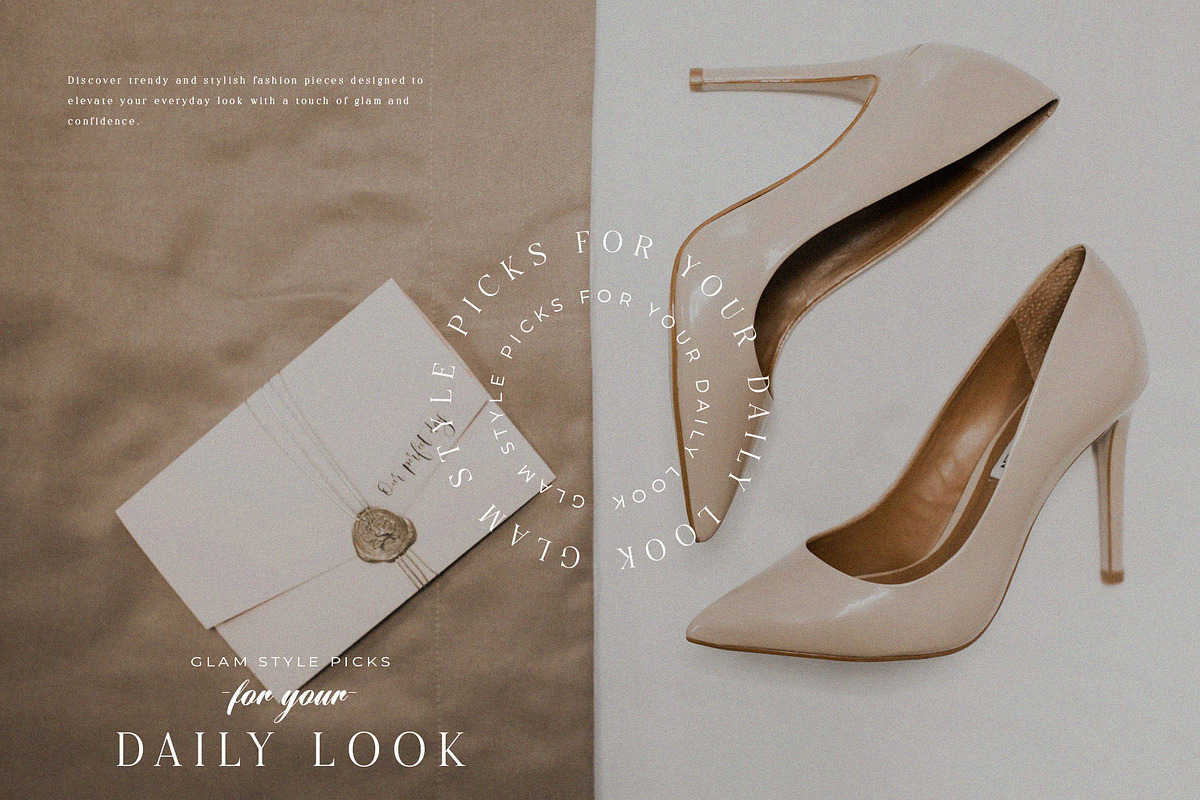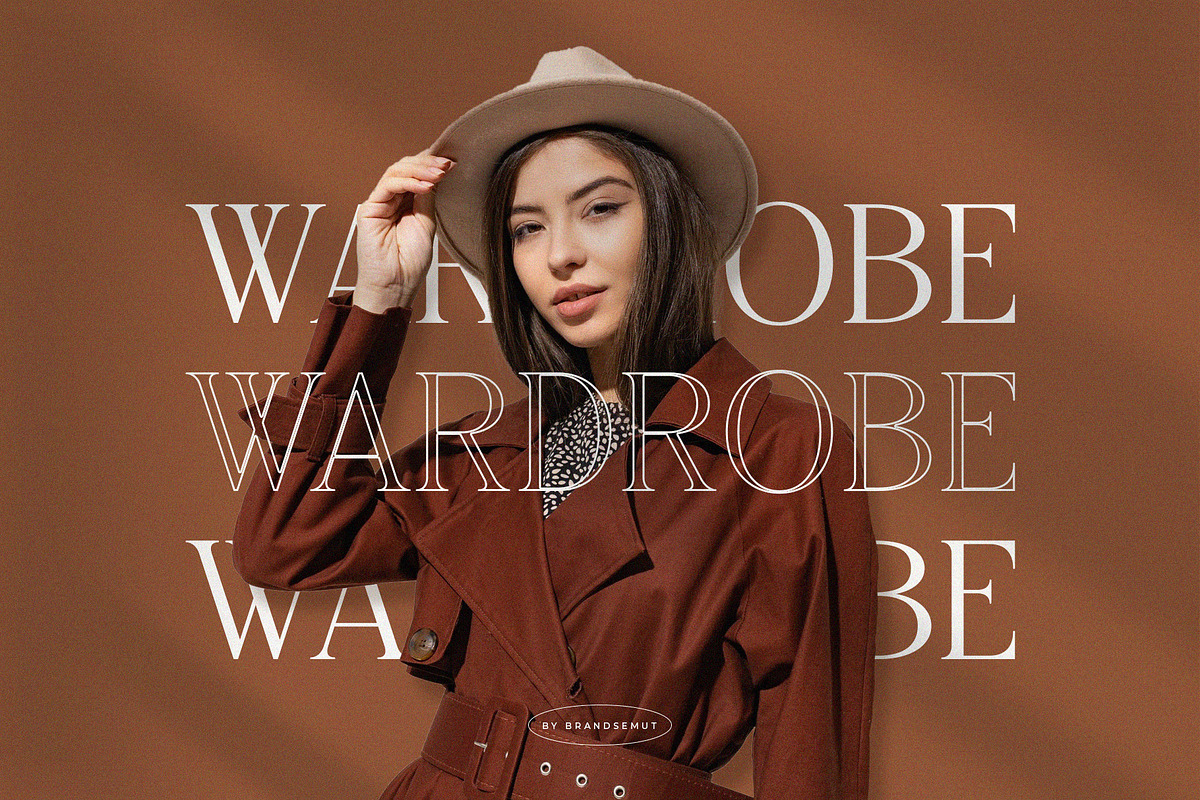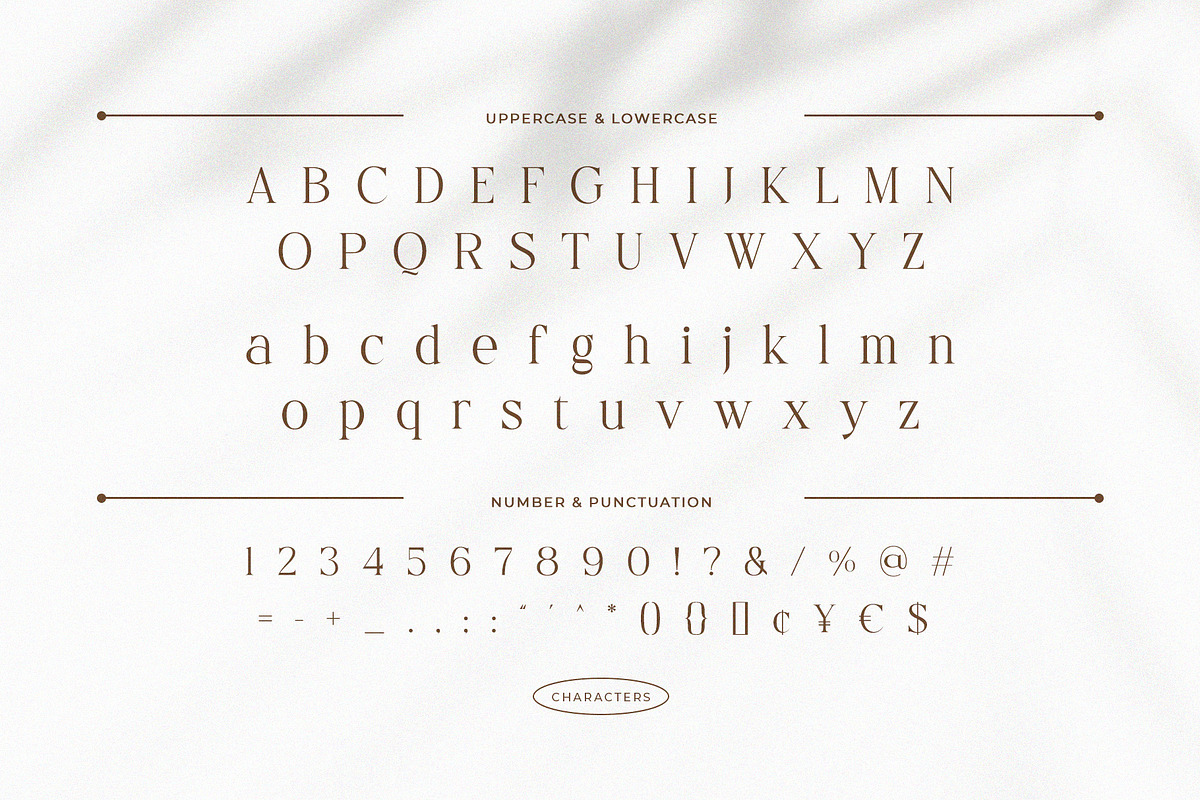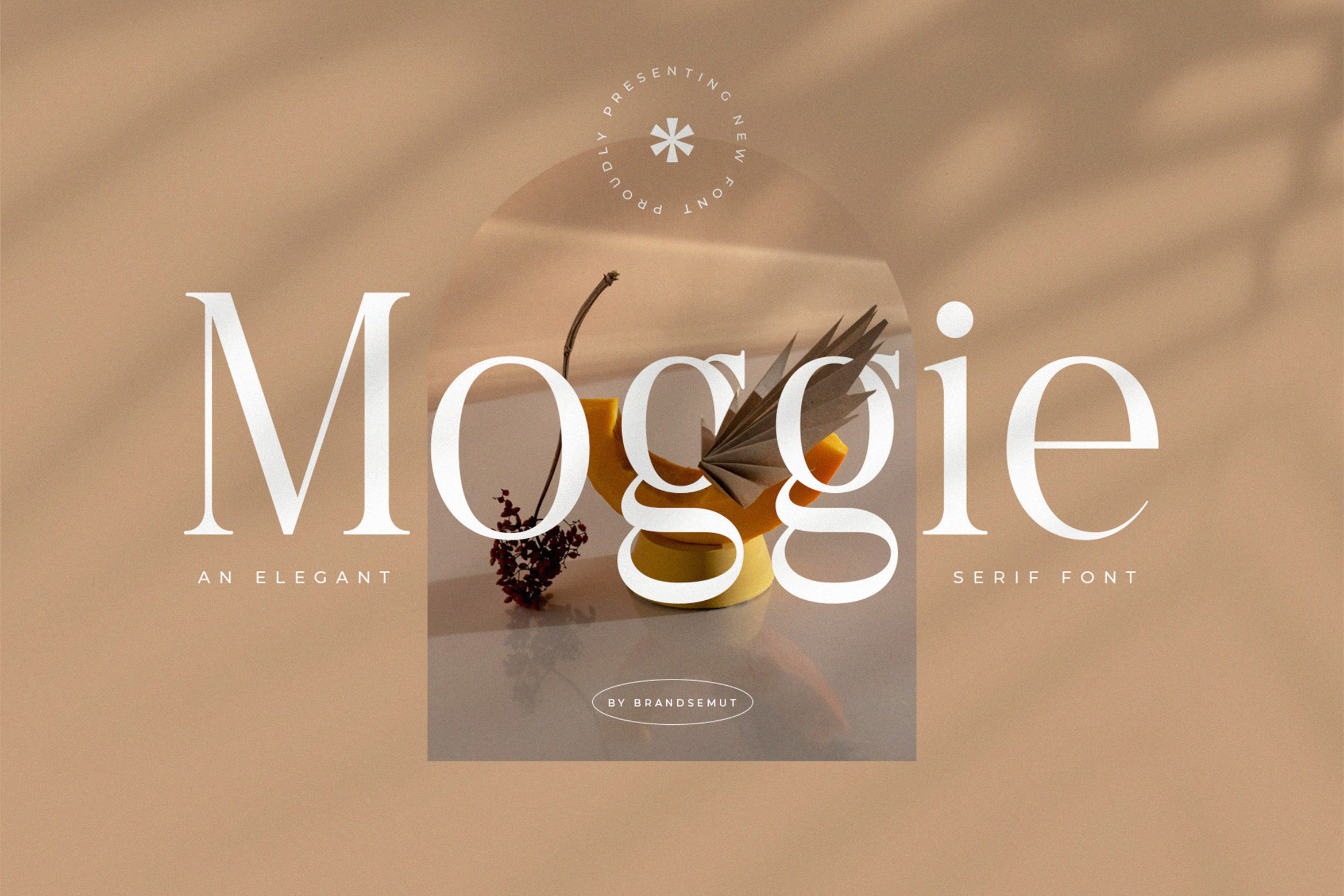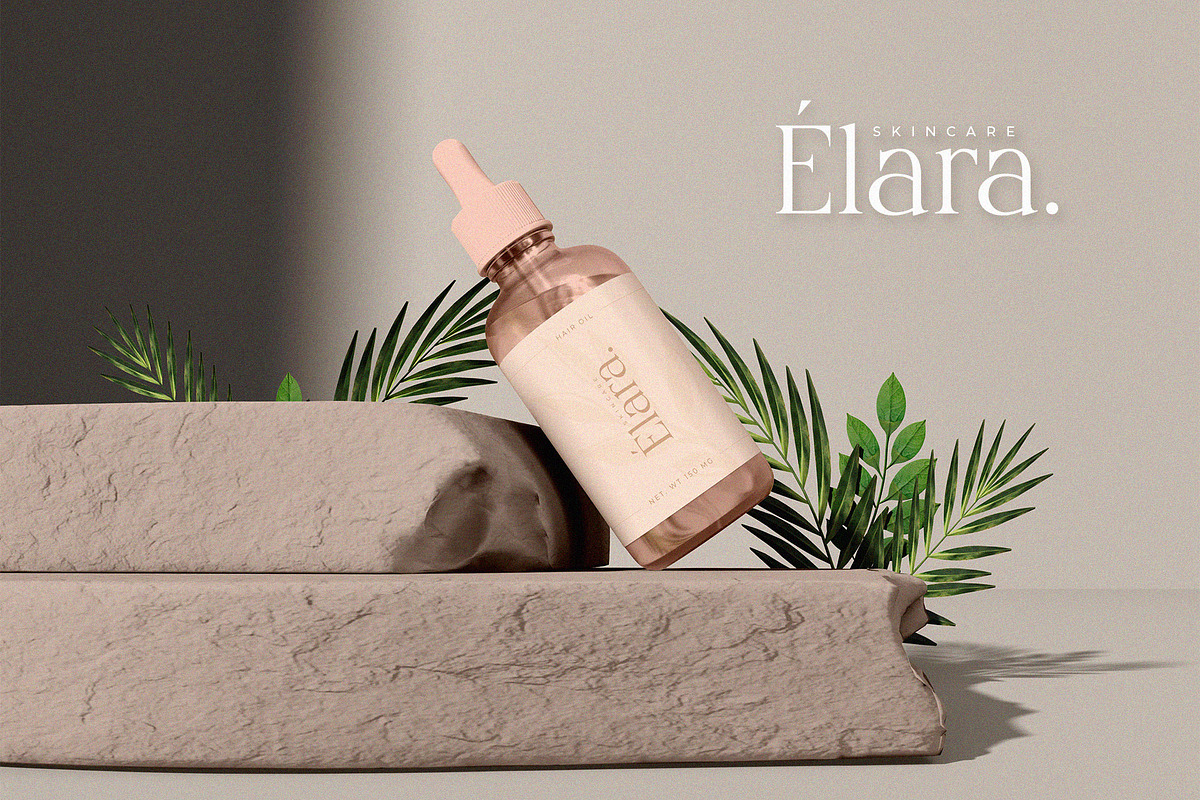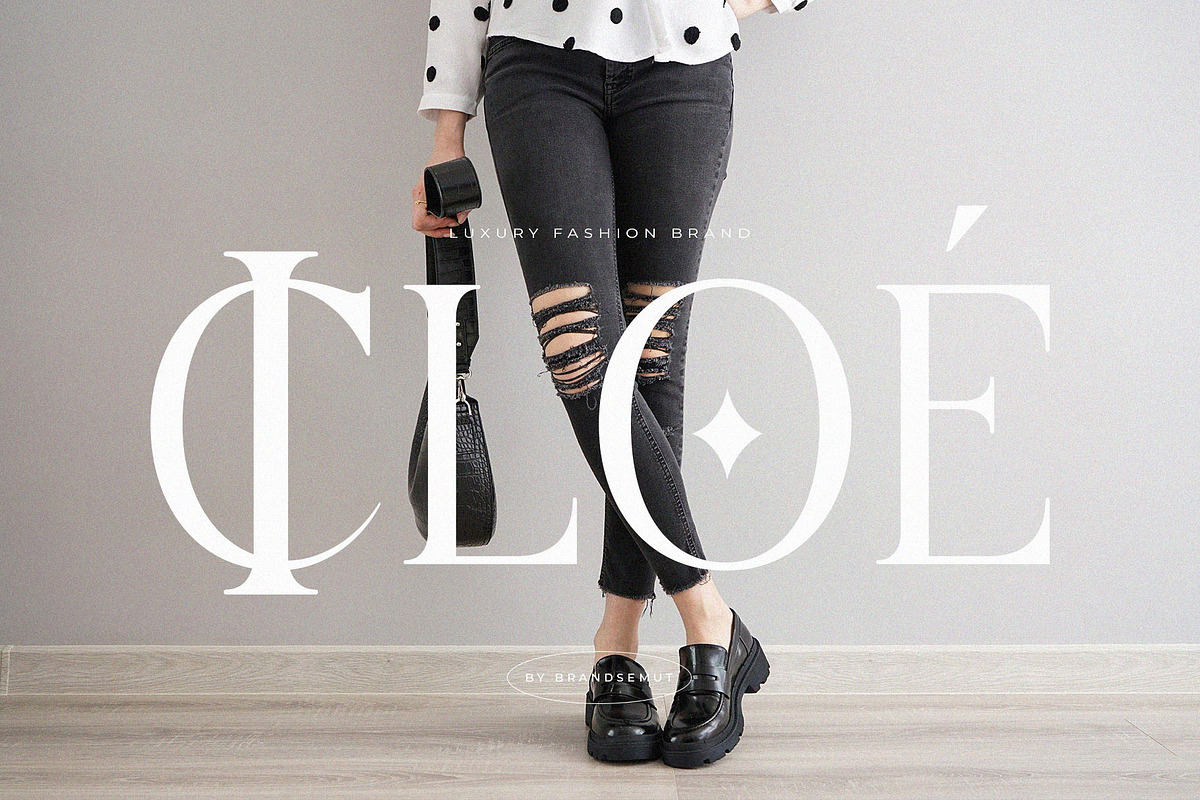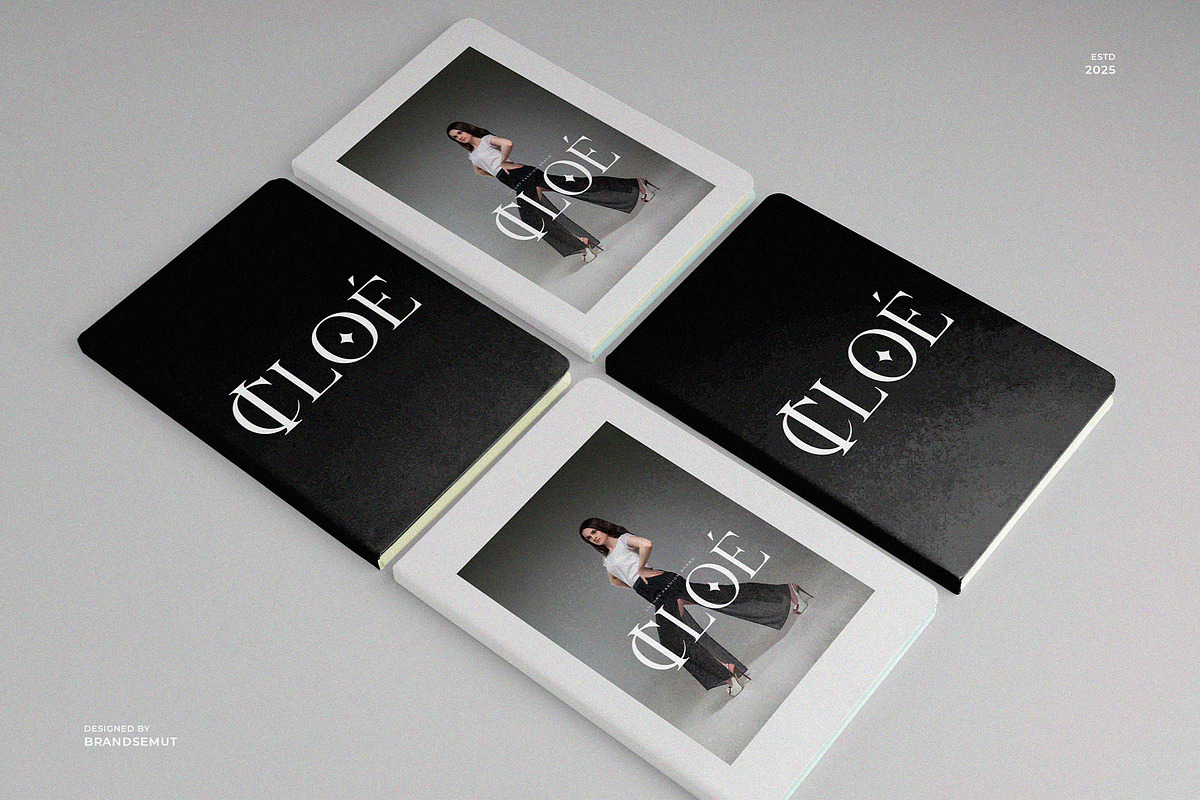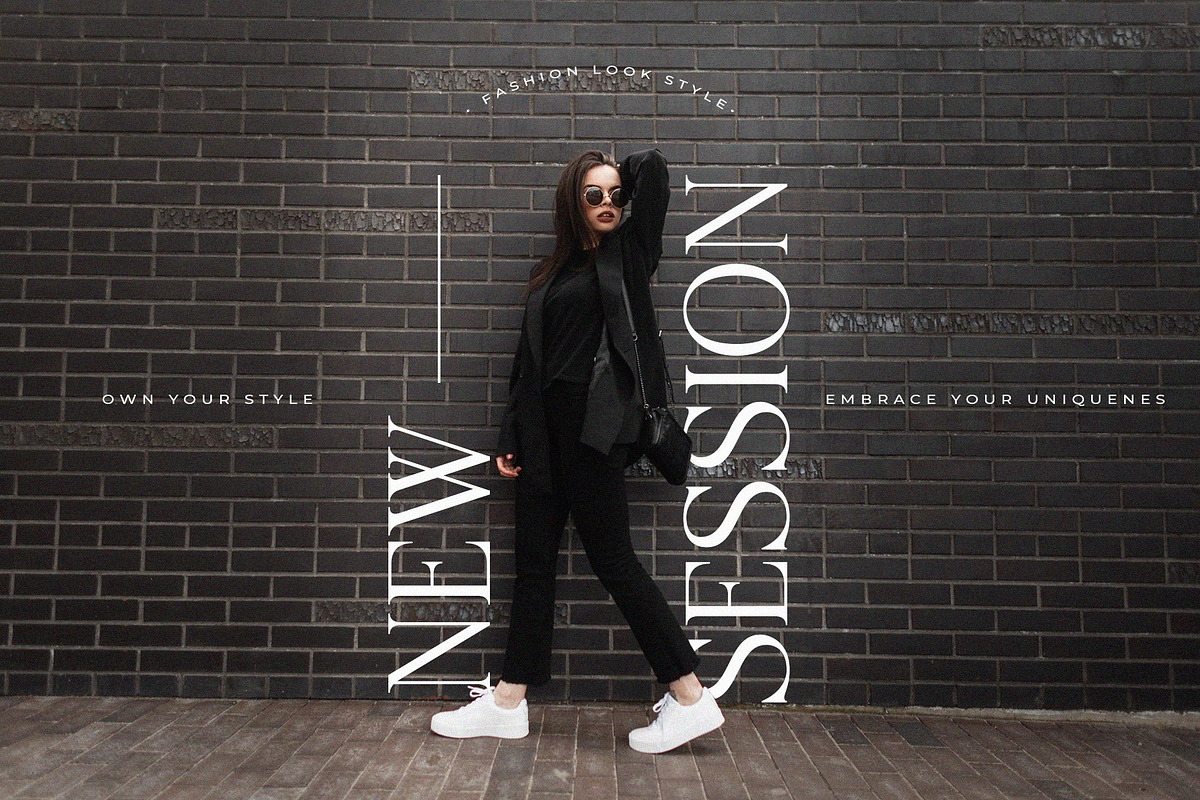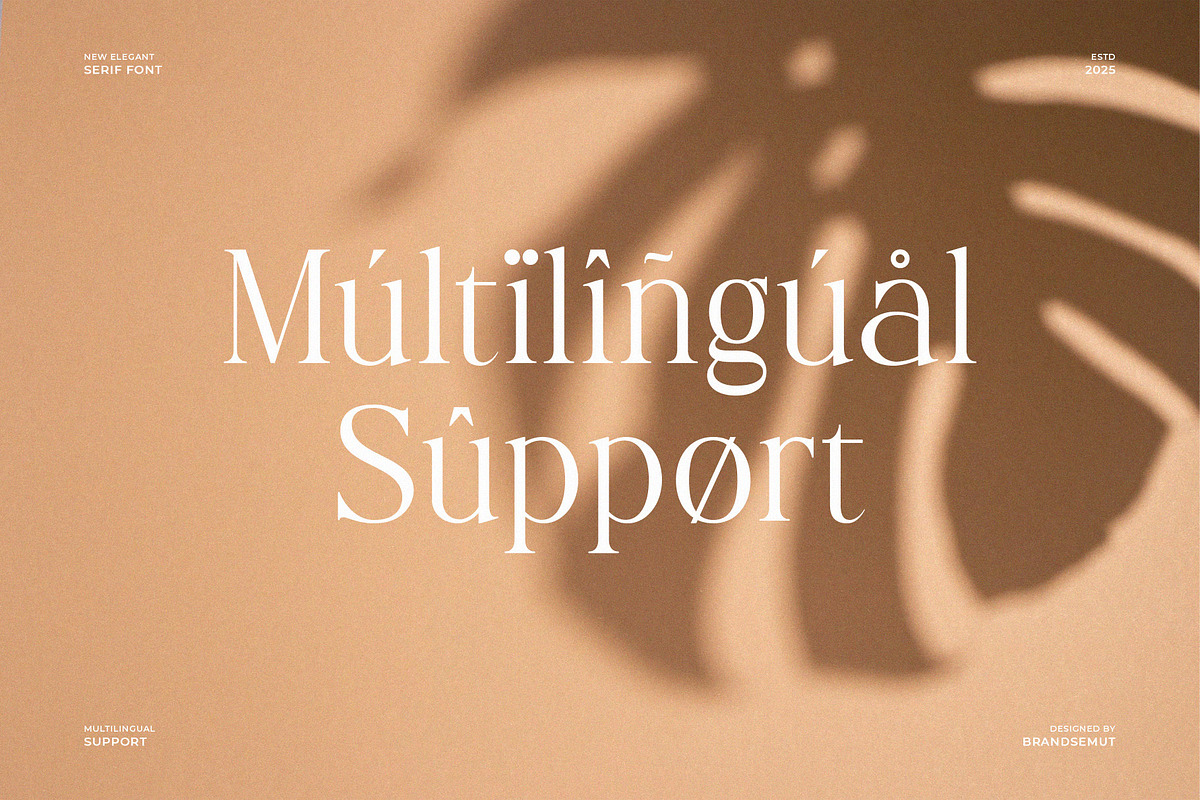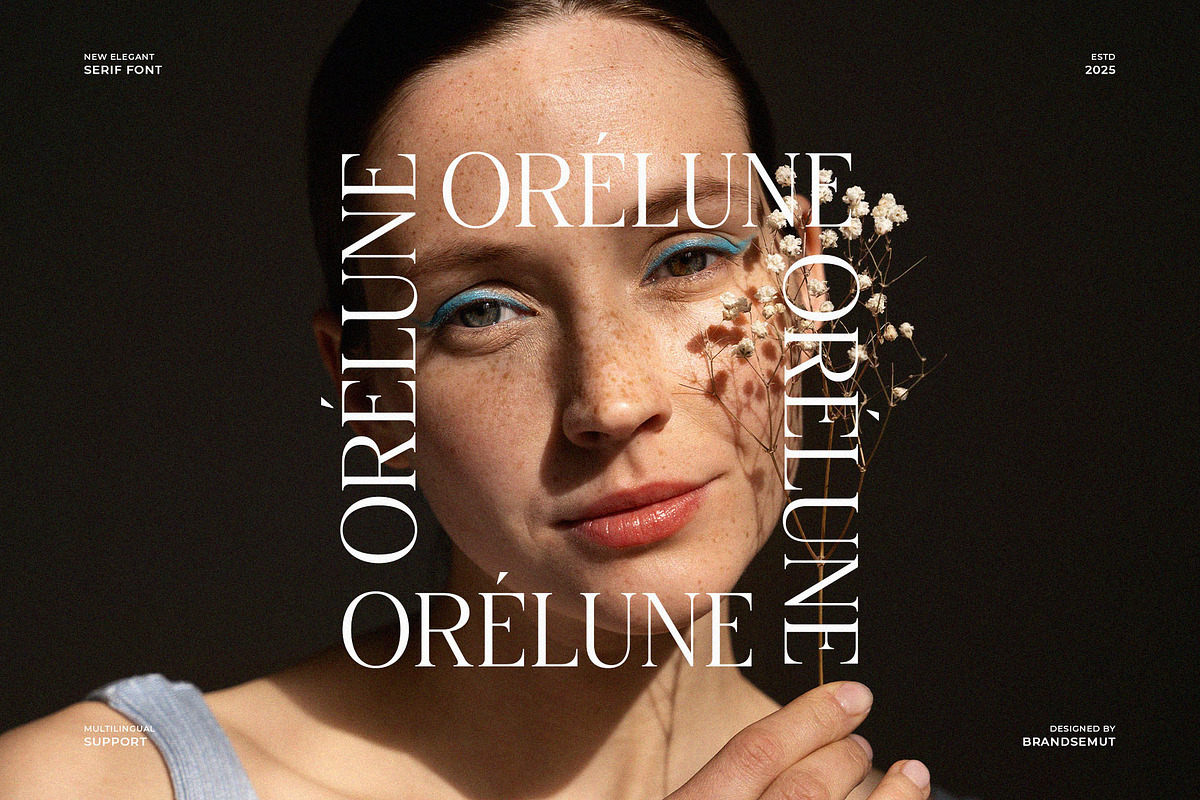
Moggie – Elegant Modern Serif Font
Moggie – Elegant Modern Serif Font with Uppercase & Lowercase for Feminine Branding & Editorial Use
Moggie is an elegant modern serif font designed with sophistication and artistic flair. Featuring full uppercase and lowercase characters, Moggie offers refined letterforms, smooth curves, and high contrast strokes that create a delicate yet confident presence — perfect for luxury branding, magazine titles, wedding invitations, and beauty packaging.
Every detail in Moggie has been carefully crafted to deliver warmth, class, and versatility across both digital and print media. This font is your go-to for soft minimalism with a premium feel.
- Feminine branding & boutique logos
- Fashion editorials & magazine layouts
- Wedding stationery & romantic designs
- Product packaging & cosmetics labels
- Instagram quotes & lifestyle content
- Uppercase & lowercase alphabets
- Elegant serif construction with modern aesthetics
- Beautiful ligatures & smooth terminals
- Optimized for high-end design use (web & print)
Add a touch of timeless beauty and modern elegance to your design with Moggie, a serif font made to inspire.